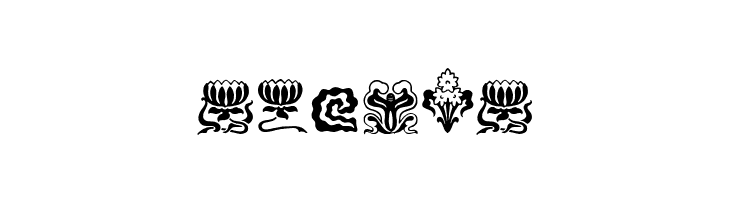
A bold, angular font with geometric influences, ideal for impactful designs.
A bold, decorative font with a vintage Western style and three-dimensional effect.
A bold, industrial font with sharp, angular edges and a vintage feel.
A playful, retro font with star-adorned, angular letters.
A decorative font styled after vintage license plates, featuring bold, eclectic characters.
A decorative font with intricate Art Nouveau-inspired designs.
A geometric Art Deco font with clean lines and a vintage 1920s aesthetic.
A bold, retro font with a three-dimensional outline and vintage flair.